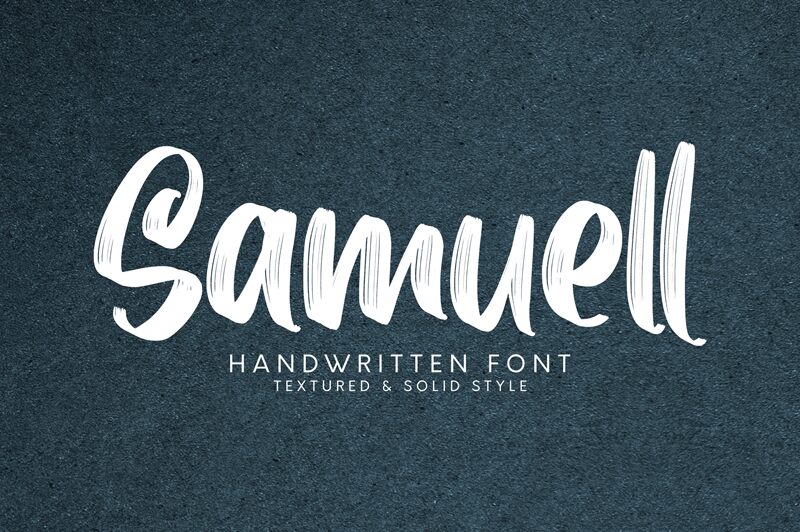
Samuell Textured - DEMO
Shooter Champ! A handbrush font with realistic brus texture styles. Shooter Champ font is perfect for branding, logotype, apparel, T-shirt, Hoodie, product packaging, quotes, flyer, poster, etc.
1. Uppercase and lowercase characters
2. Supports international languages
3. Numerals, punctuations, ligatures.
6. Multilingual support.